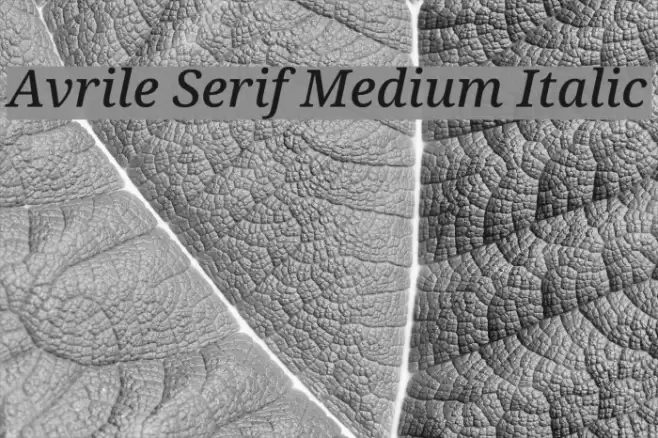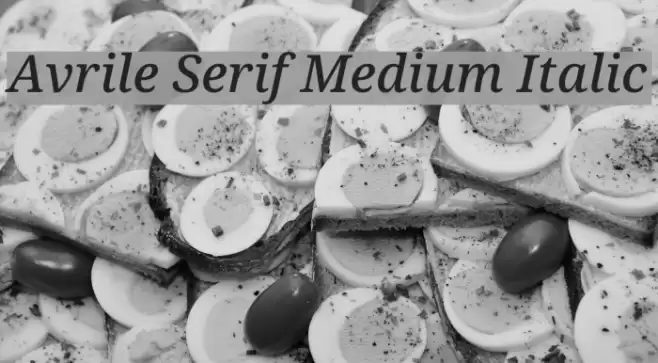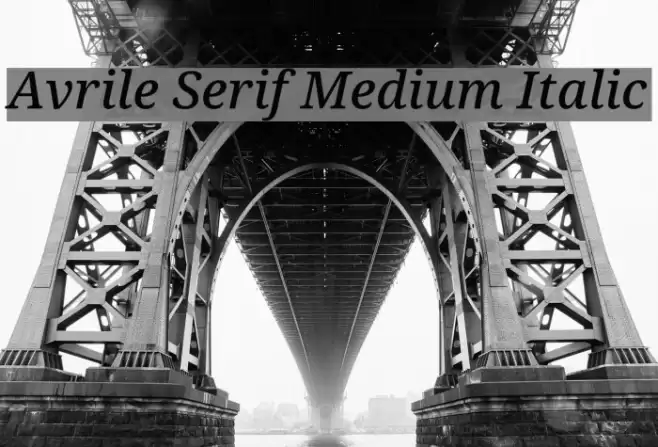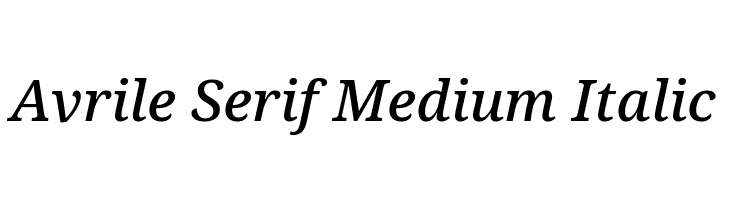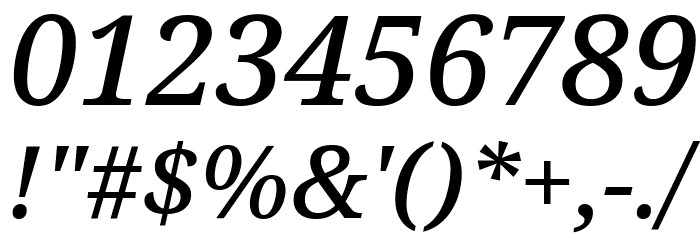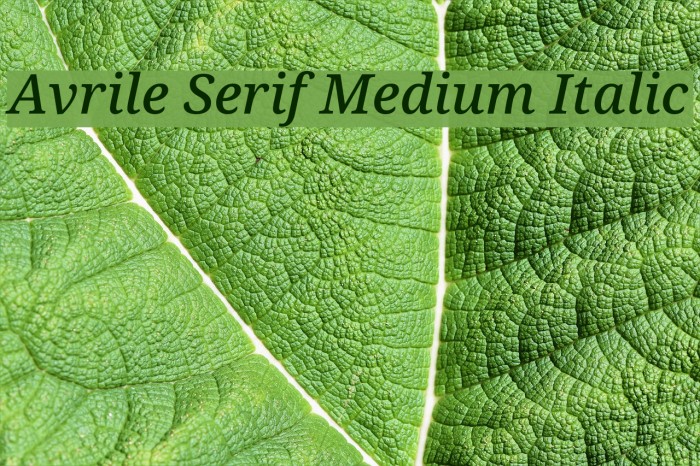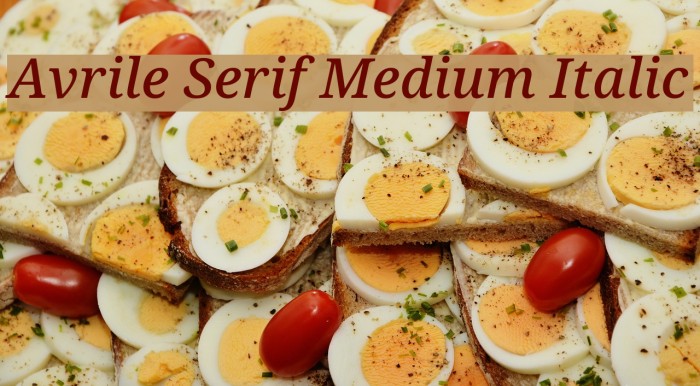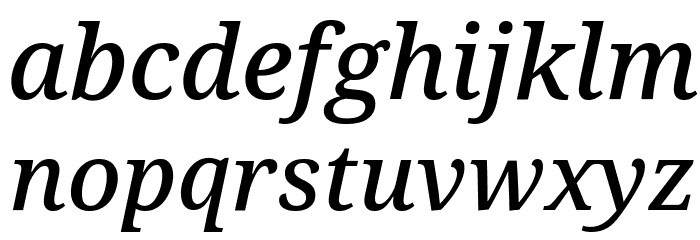
Avrile Serif Medium Italic Font
Avrile Serif Medium Italic Description
This font exhibits a classic serif style with a medium weight and an italic slant, giving it an elegant and sophisticated appearance. The serifs are pronounced yet refined, adding a touch of tradition and formality. The italicization provides a sense of motion and fluidity, making it suitable for both formal and creative applications. The characters are well-proportioned, with a moderate contrast in stroke thickness that enhances readability while maintaining a stylish look. The spacing between characters is balanced, ensuring clarity and legibility across various sizes.
Elegant serif font with medium weight and italic style from Uncategorized fonts.
- Proposed Projects: Ideal for editorial design, book covers, formal invitations, and branding projects that require a touch of elegance and tradition.
- Overall Style: Classic